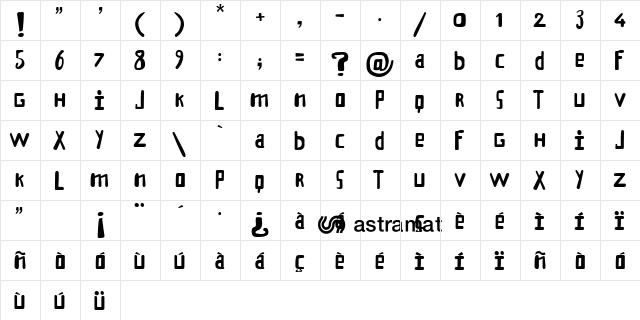
Klander Regular
Design Context for Klander Typeface
Klander is a composed and adaptable typeface that performs quietly and consistently across a wide range of design contexts.